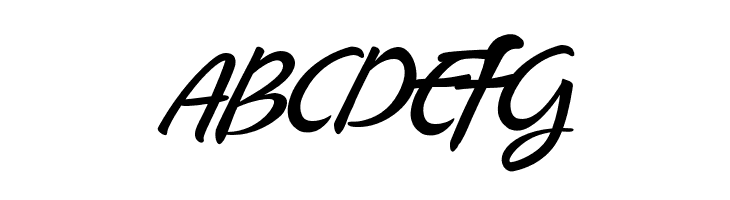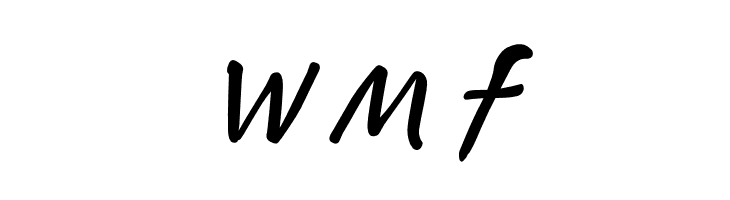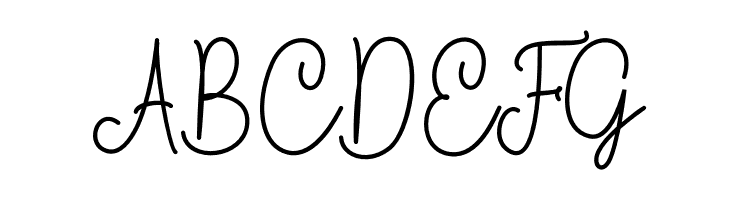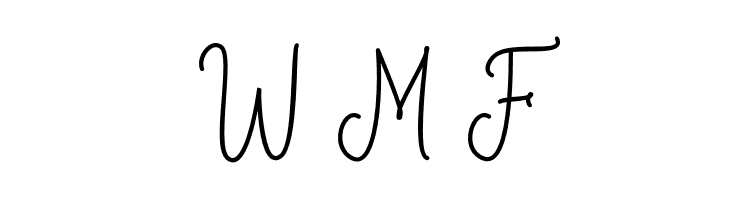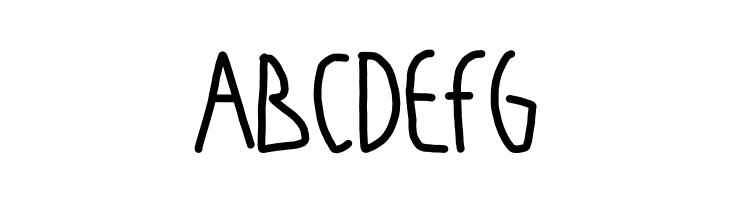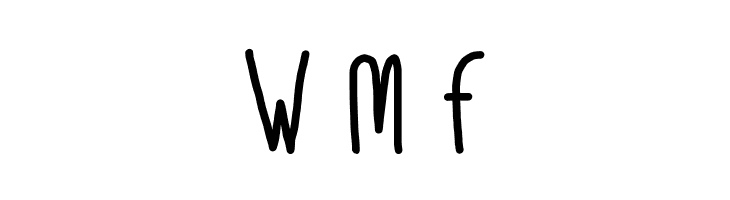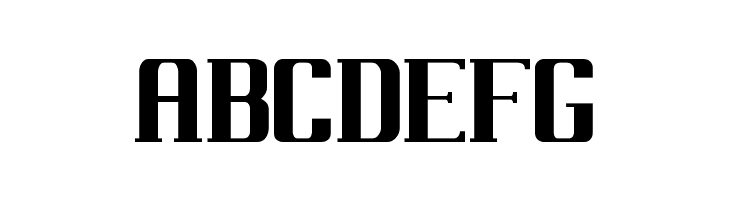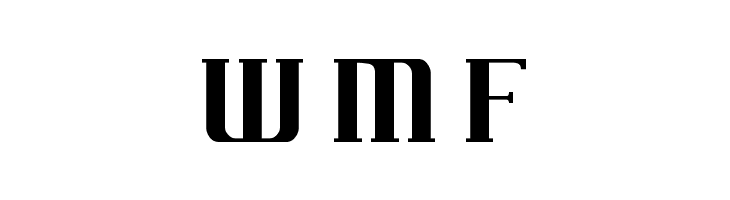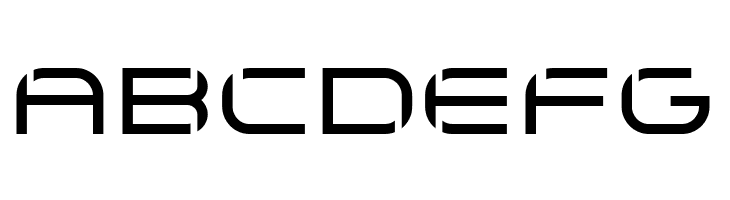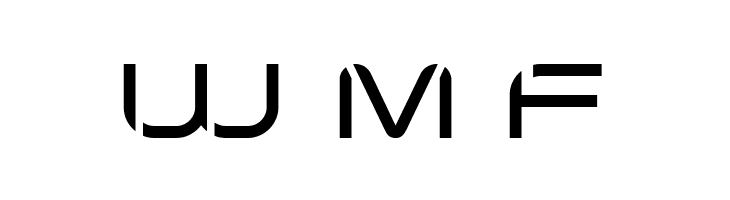
A bold, angular serif font with a modern twist.
A playful, quirky handwritten font with an artistic flair.
A modern, bold sans-serif font with a geometric and clean design.
A tall, narrow serif font with a blend of classic and modern elements.
A playful and elegant script font with smooth, flowing lines and a handwritten appearance.
A decorative and artistic font with intricate, whimsical letterforms.
A bold, fluid handwritten font with dynamic strokes and a lively slant.
A slender, modern handwritten font with a casual, flowing style.
A modern, geometric stencil font with a futuristic and industrial design.